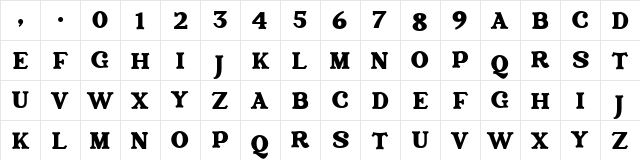
Acherone Regular
| Foundry | Runsell Studio |
| Designer | Edi Gunawan |
Design Context for Acherone Typeface
Acherone takes a measured approach to typography — its balanced proportions and neutral character make it a reliable workhorse for both digital and print work.